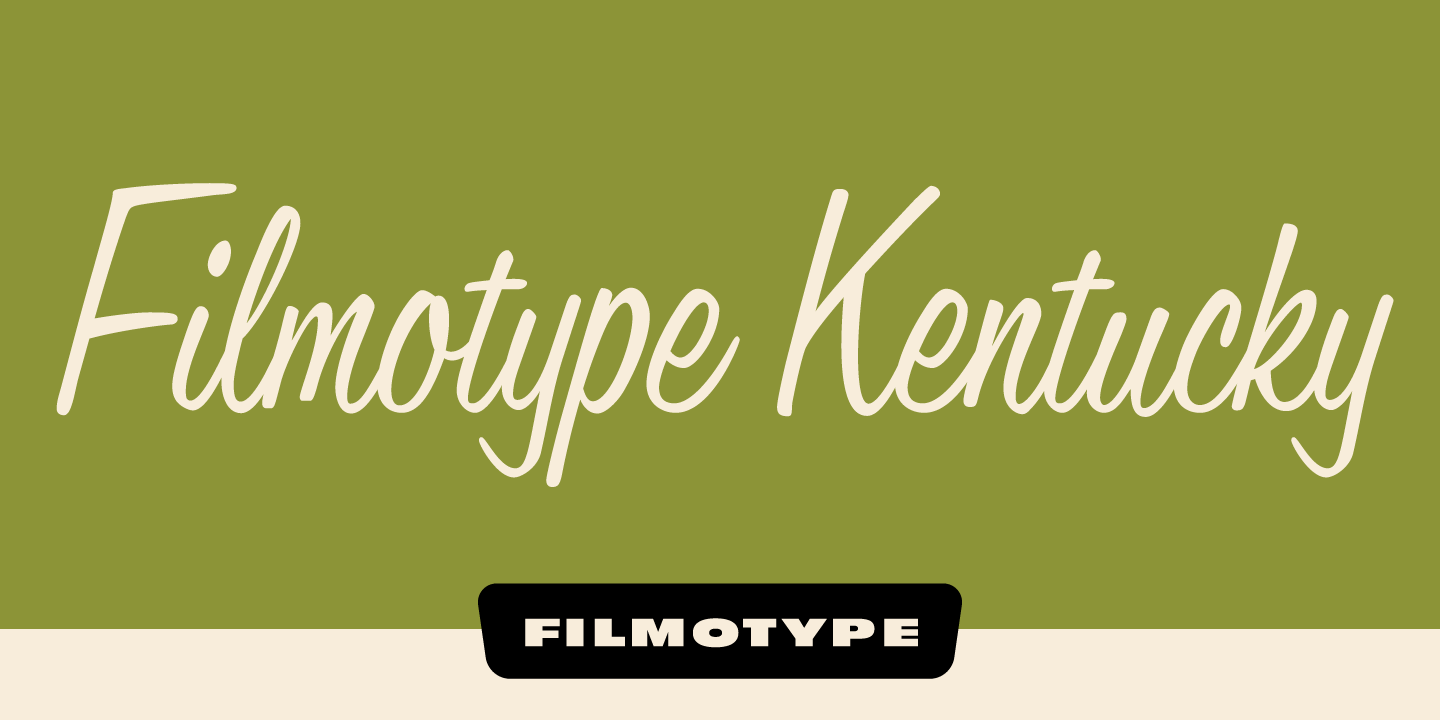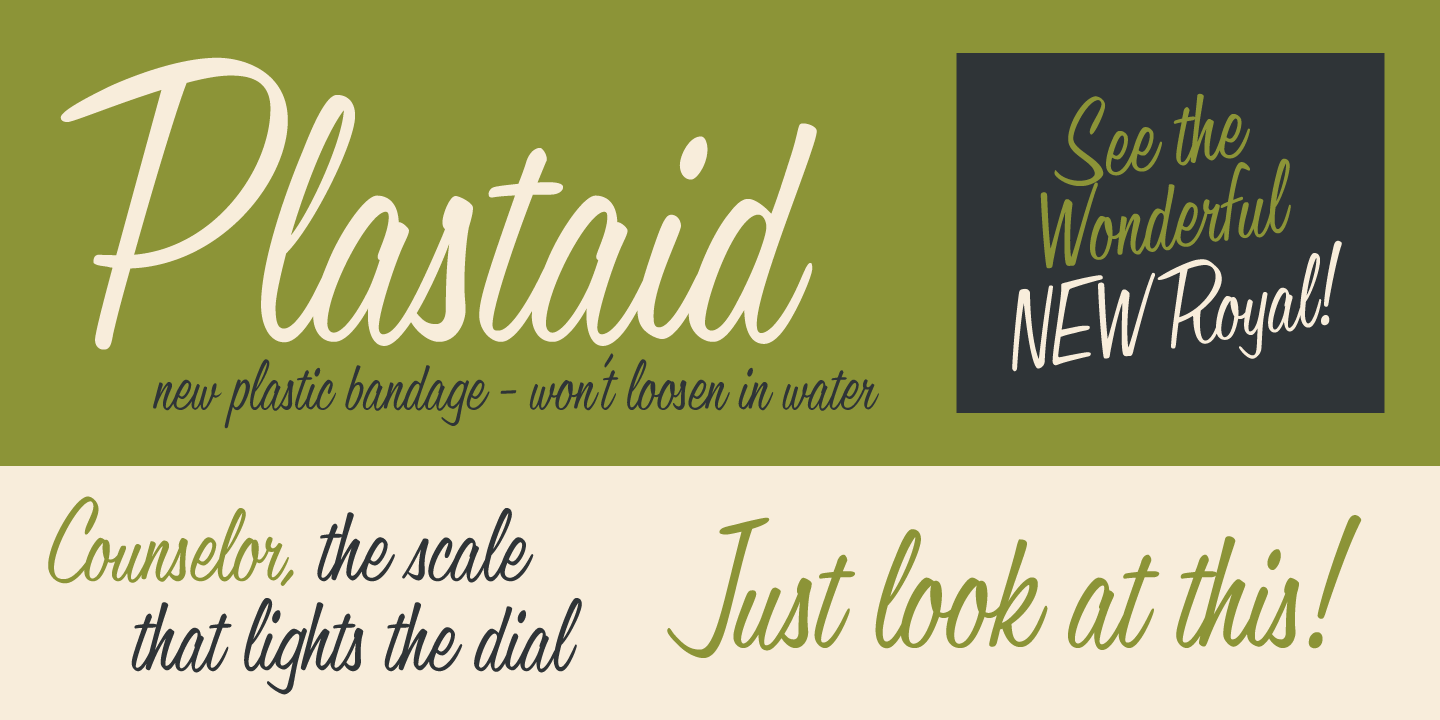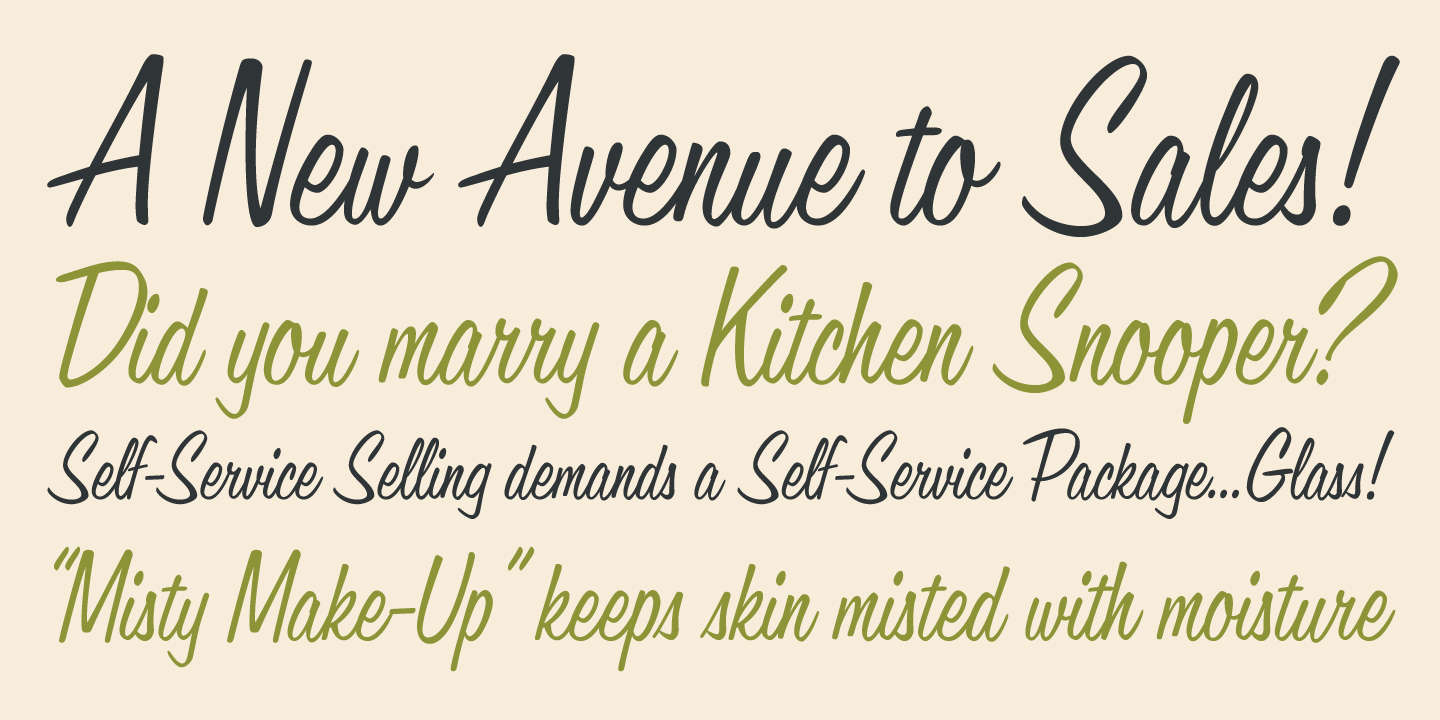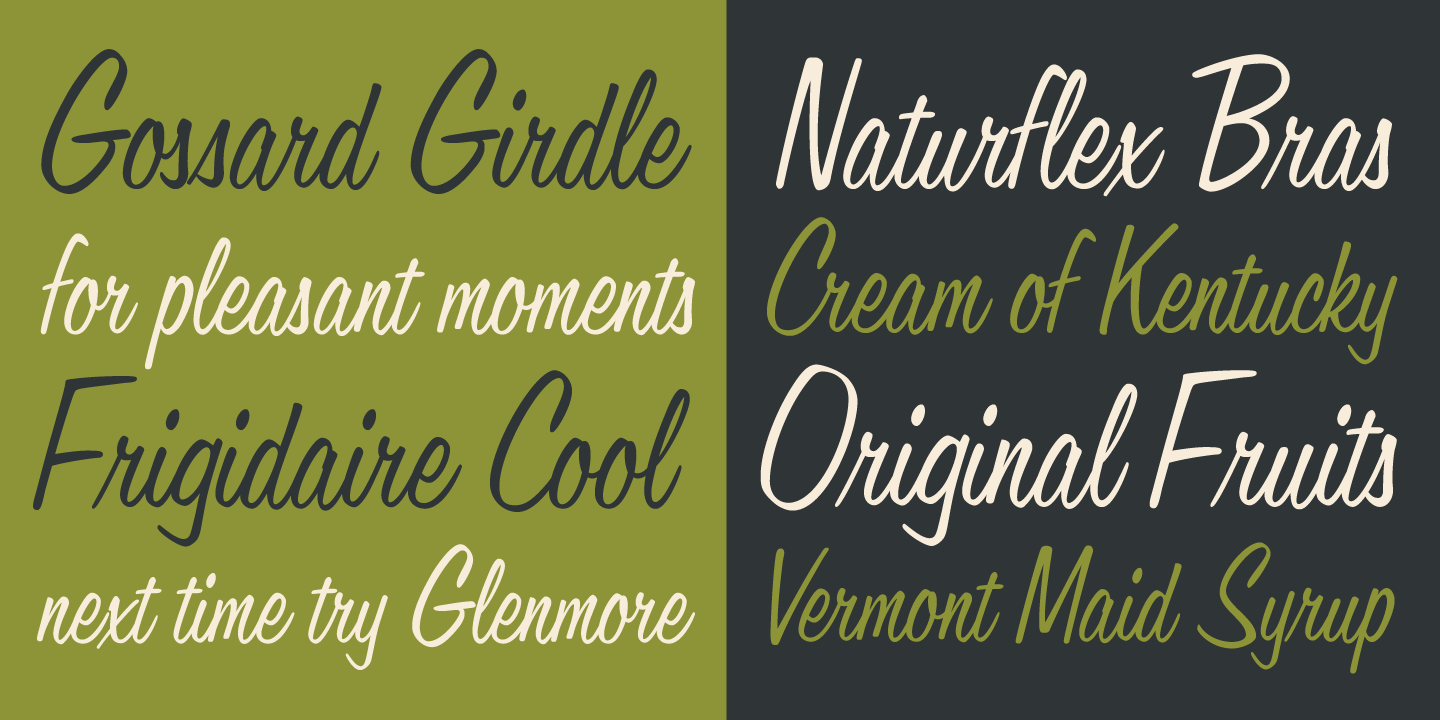
Filmotype Kentucky
Filmotype Kentucky was released by Filmotype in 1955 as a more condensed italic version of its first connecting script face, Filmotype Harmony, which was originally designed by Ray Baker. Developed from the original font filmstrips, Filmotype Kentucky includes a full international character compliment, automatic fractionals, ordinals, and a large set of automatic alternate contextual characters and ligatures to allow flawless typesetting in dynamic OpenType format.
The Filmotype Kentucky font family includes 626 glyphs.
Filmotype Kentucky by Filmotype